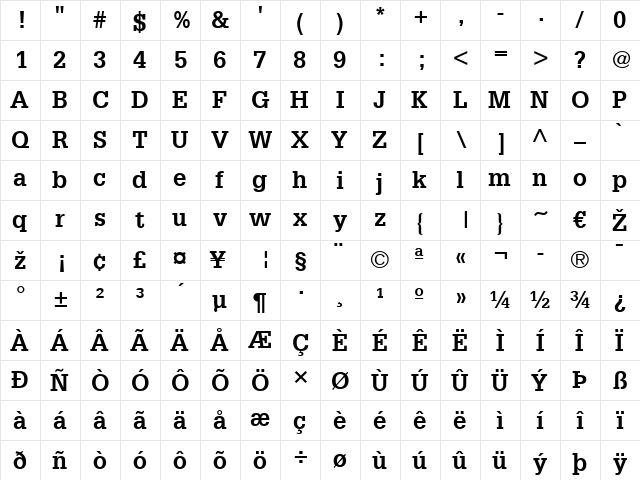
Glypha LT Bold
| Designer | Adrian Frutiger |
Design Context for Glypha LT Typeface
Glypha LT offers clean, dependable letterforms without strong stylistic allegiance, making it a practical choice for designers who need flexibility. The heavy weight commands attention and anchors typographic hierarchies.